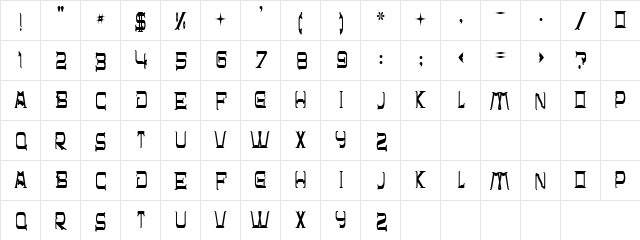
Shackles Regular
Design Context for Shackles Typeface
Shackles is a composed and adaptable typeface that performs quietly and consistently across a wide range of design contexts.